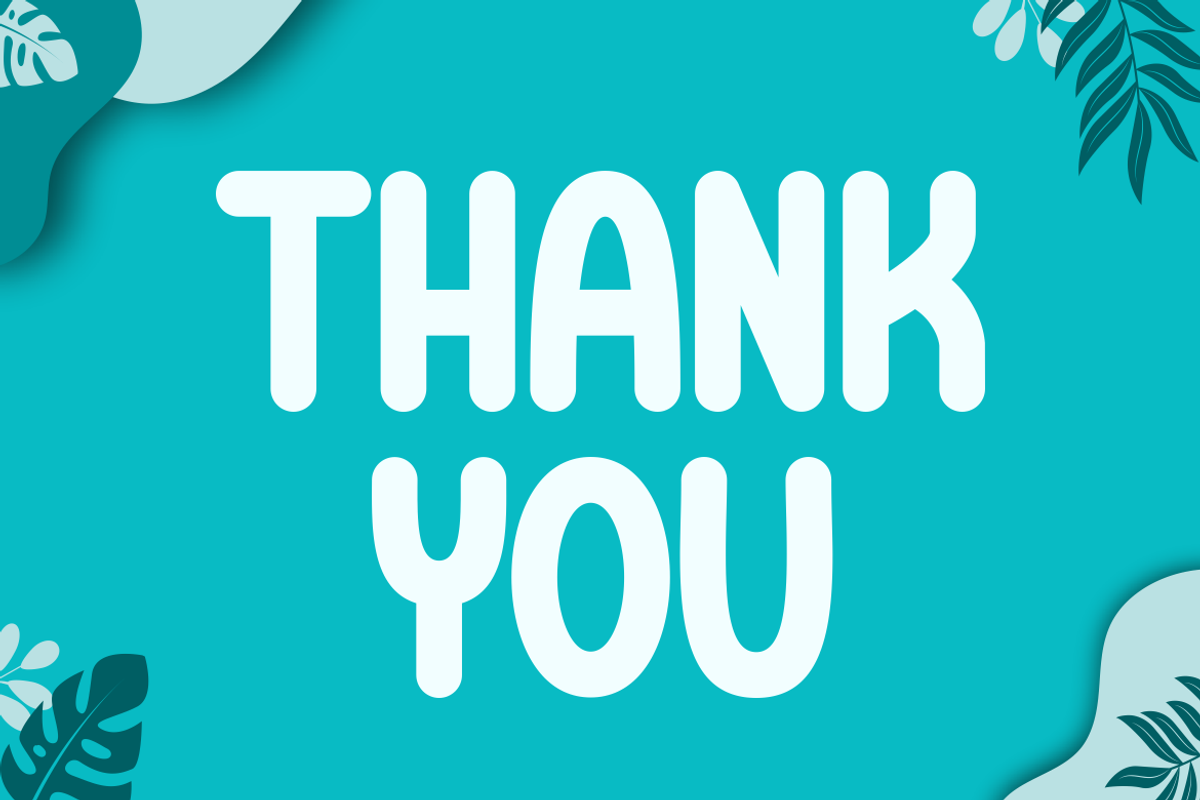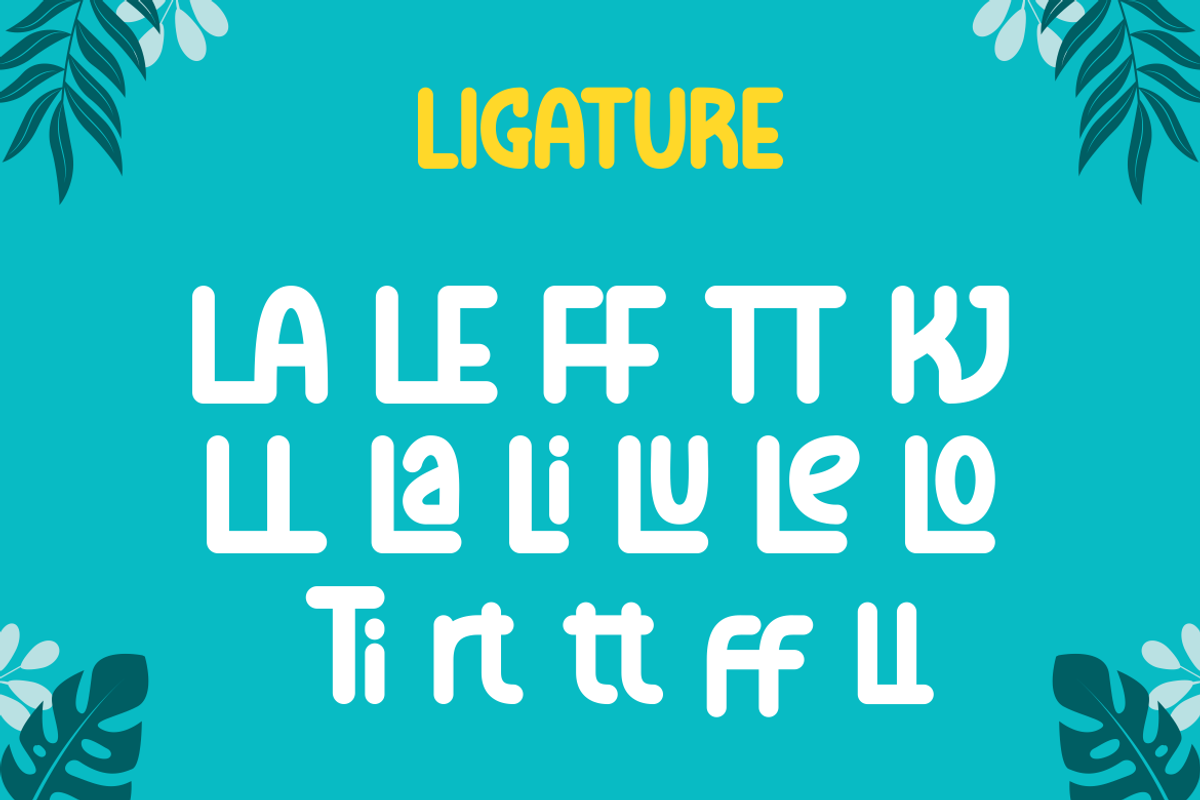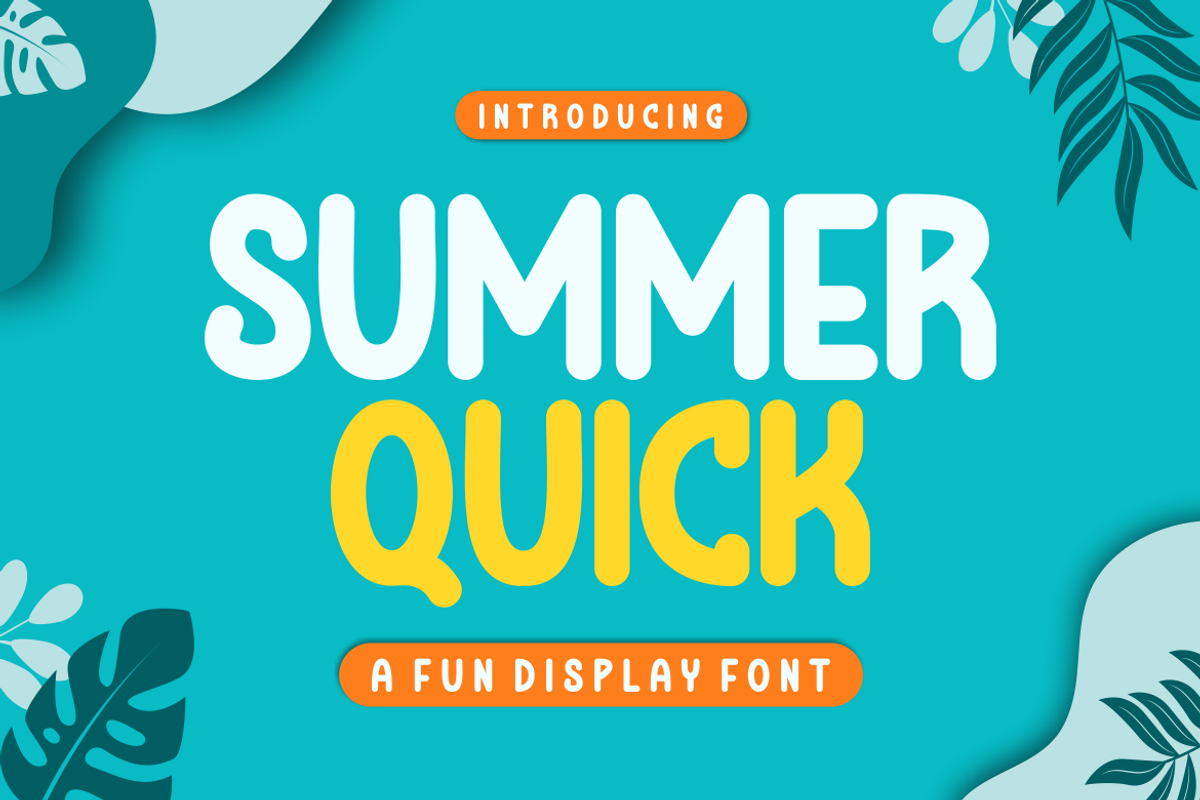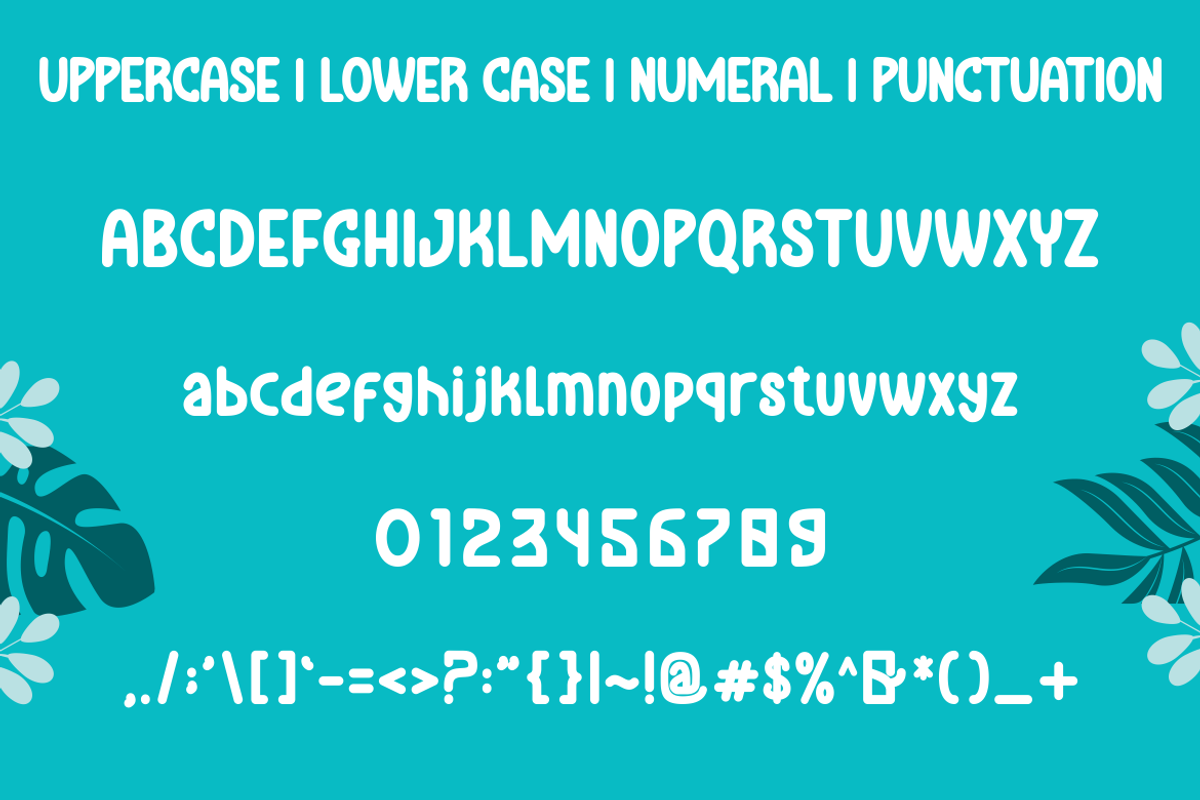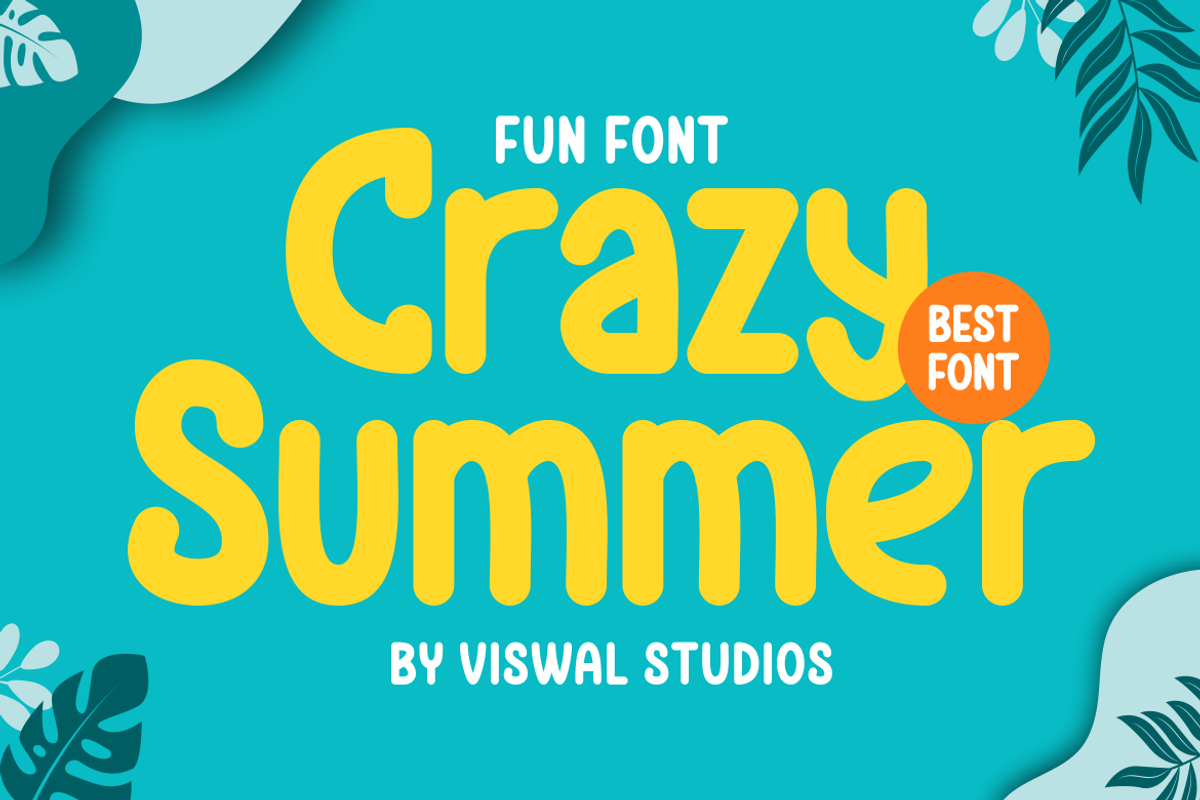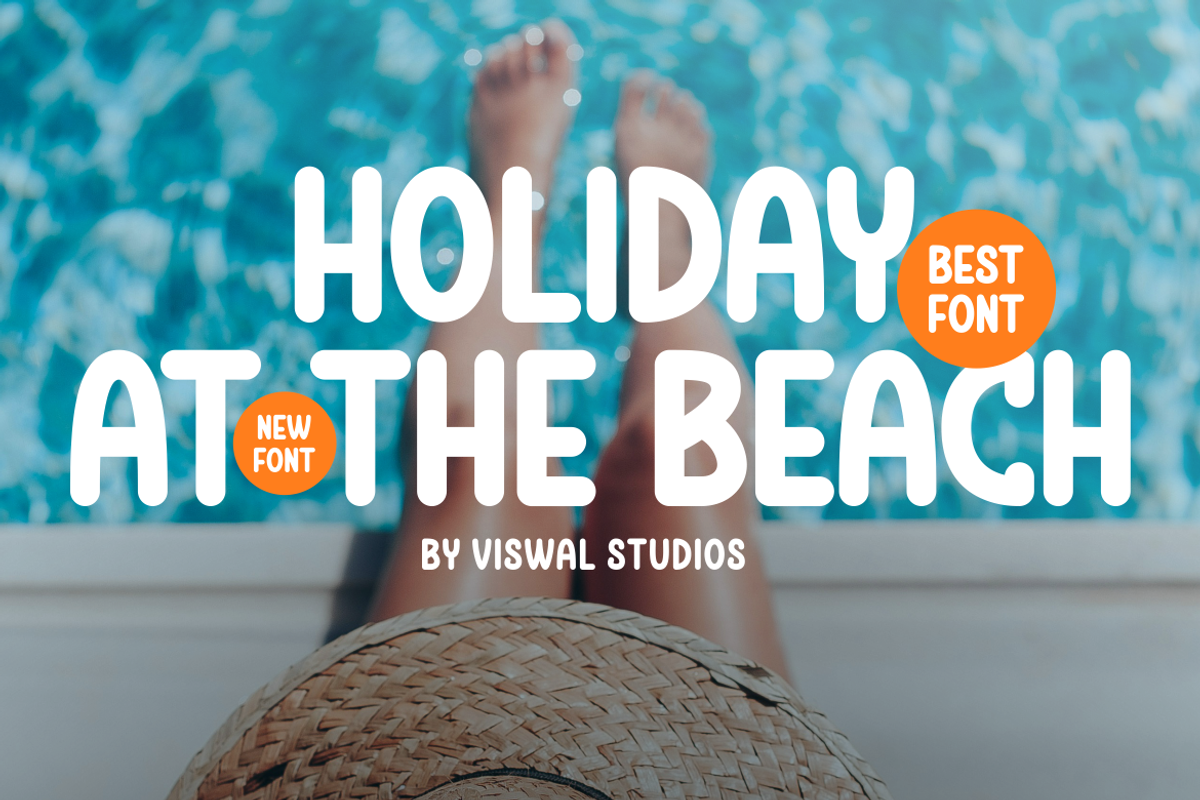
SUMMER QUICK - Playful Font
Presenting SUMMER QUICK Is A Playful Font.
Can Make It Easier To Convey The Message In Your Design. Font Is Suitable For Logo, Labels, Badge, Branding, Magazine, Poster, Title, Gigs, Covers And Etc. Our Fonts Have Uppercase & Lowercase, Numeral & Punctuation, And Opentype Features. For Amazing Designs You Can Mix With Other Fonts As A Complement.